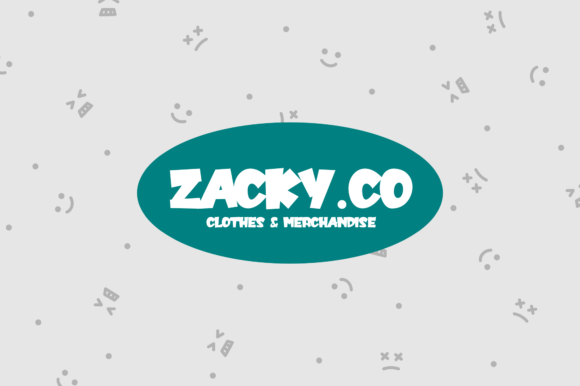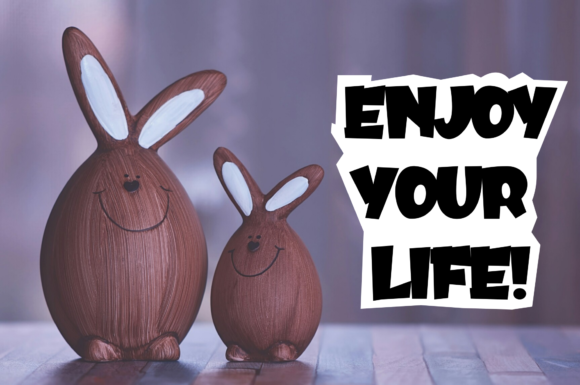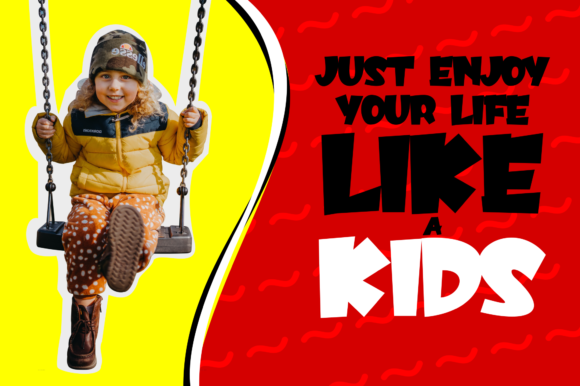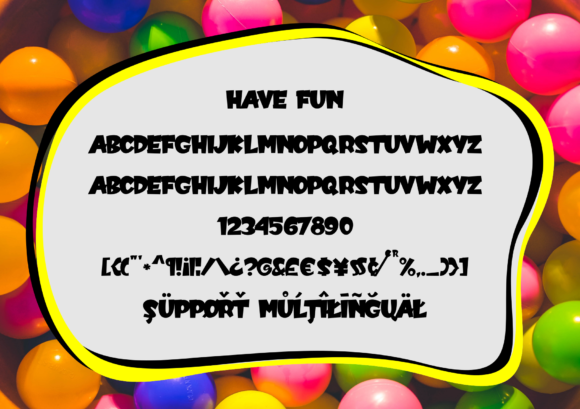
Bring a Smile to Your Designs with the Have Fun Font
Who hasn’t felt that rush of excitement when brainstorming a new project, surrounded by colorful pens, sticky notes, and a blank canvas waiting to be filled with creativity? It’s in those moments that we’re reminded of the importance of having fun with our work. And what better way to infuse that sense of playfulness into your designs than with the perfect font?
Meet the Have Fun Font, a cool and chunky lettered display font designed to bring a smile to your audience’s faces. Its purpose is to add a touch of whimsy to children-themed designs, especially when paired with bright colors. This font is a valuable asset for designers looking to create engaging and memorable visual content that resonates with their young audience.
Key Features of “Have Fun Font”
- Font Family: A playful, sans-serif font designed for fun and creative purposes.
- Font Size: Designed to be highly legible at various sizes, with optimal readability at 12-24 points.
- Resolution: Optimized for screen use at resolutions up to 300 DPI, making it ideal for digital applications.
- Unique Characteristics: Features exaggerated rounded corners, smooth lines, and a lively feel, perfect for adding a touch of whimsy to designs.
Have Fun Font Review
As a designer, I was excited to dive into the world of “Have Fun Font” and see what it had to offer. Upon initial inspection, I was struck by its ✨ playful and energetic vibe, perfect for projects that need a lighthearted touch. The font’s creative and whimsical feel is sure to bring a smile to users’ faces.
One of the standout features of “Have Fun Font” is its ✨ versatility. It comes in a range of weights and styles, from bold and chunky to delicate and cursive. This versatility makes it easy to use in a variety of contexts, from branding and advertising to digital design and print materials.
However, there are some limitations to consider. ⚠️ The font’s lack of robustness makes it unsuitable for large-scale or complex designs. Additionally, the font’s creative style can sometimes come across as gimmicky or over-the-top, which may not be suitable for more formal or professional projects.
Design Considerations
- Best used for lighthearted, playful projects
- Versatile in terms of weights and styles
- Not suitable for large-scale or complex designs
- May come across as gimmicky or over-the-top
Overall, “Have Fun Font” is a fun and creative addition to any designer’s toolkit. While it may not be suitable for every project, it’s a great choice for those looking to add some personality and whimsy to their designs.
For best results, use the Have Fun Font in conjunction with bright and bold colors to create a playful and eye-catching design. Experiment with different font sizes and styles to add visual interest to your design.
The Have Fun Font is perfect for creating playful and engaging designs for kids’ party invitations, social media graphics, and advertising materials. It’s also great for adding a touch of whimsy to corporate branding and marketing materials.
What is the recommended font size for using Have Fun Font?
The recommended font size for Have Fun Font is between 12pt and 24pt. This range provides optimal readability and legibility for most applications and screen resolutions. However, feel free to experiment with different font sizes to find the perfect fit for your design.